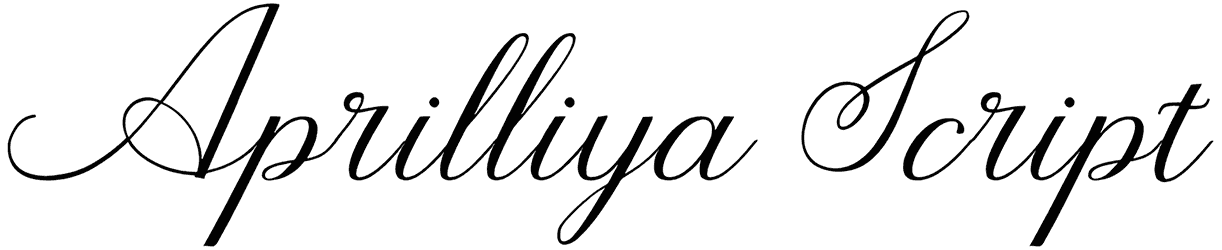
Aprilliya Script Font
The elegant text of a wedding card could convey a memorable feeling to viewers, and this calligraphy font has such an adorable visual. The Aprilliya Script font consists of stylish characters with a romantic mood. You’ve got to test this postcard font for your next project to see how amazing it will be.